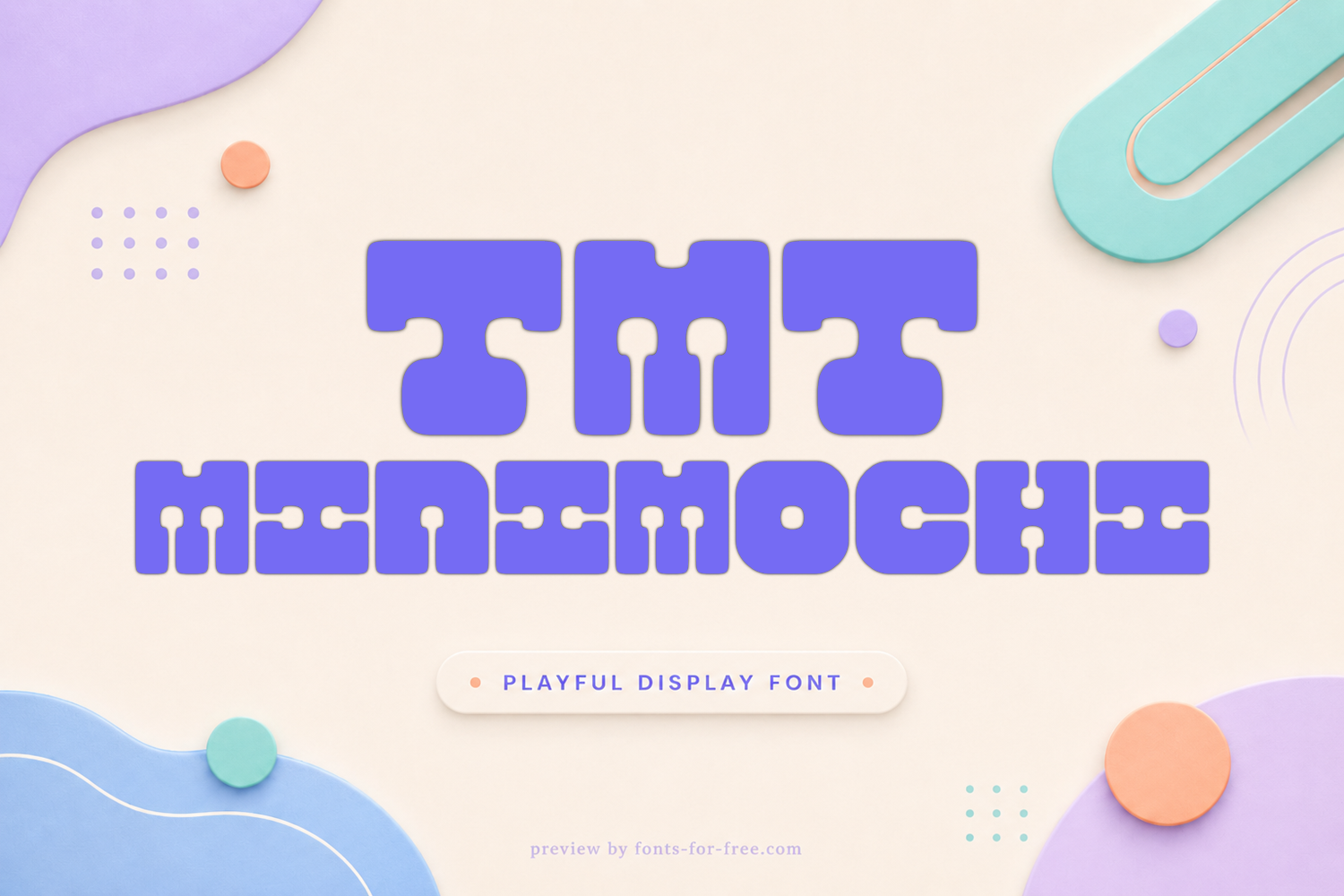
TMT Mini Mochi Sour is a playful display typeface with heavy, rounded, low-contrast letterforms and a compact block rhythm. Created by Gabriel Drozdov, it uses chunky shapes, soft corners, and small interior cutouts that give the alphabet a toy-like, candy-like character. The forms stay upright and fairly readable in short words, though the decorative construction is better suited to headlines than long text. Its friendly mood fits children’s graphics, snack packaging, stickers, posters, casual logos, social media titles, and other designs needing a soft, bold voice. It is licensed under the SIL Open Font License 1.1.